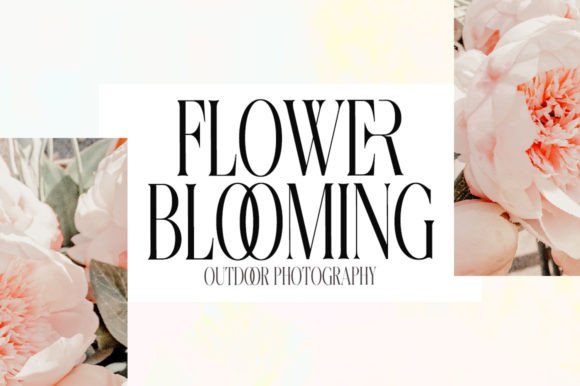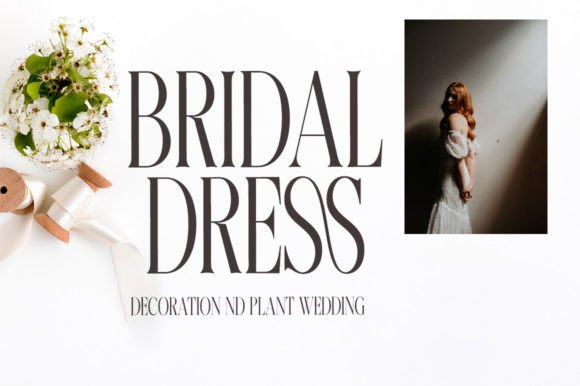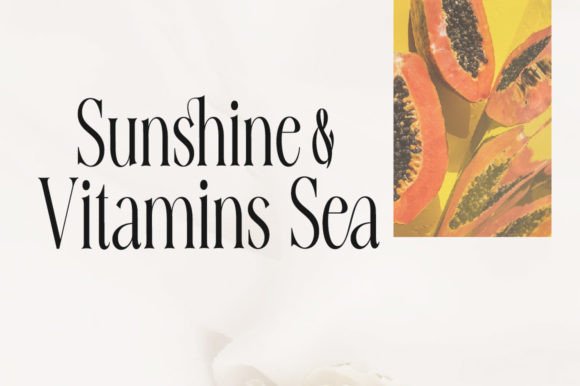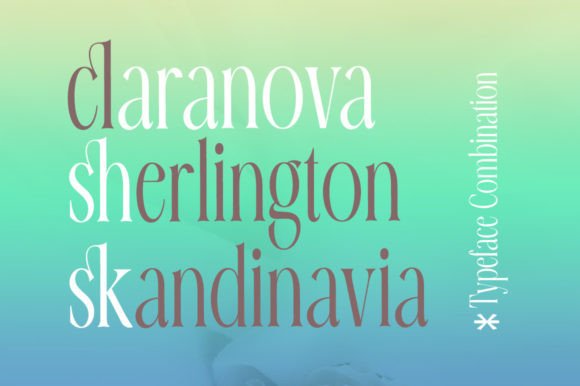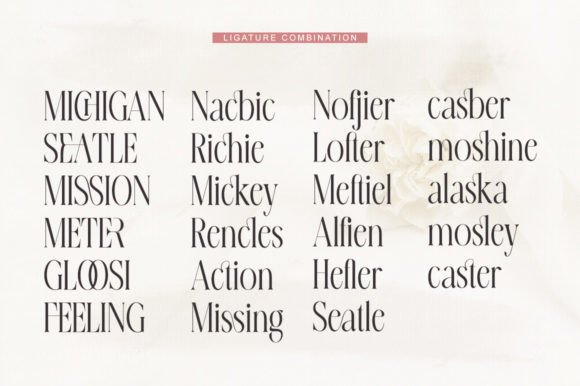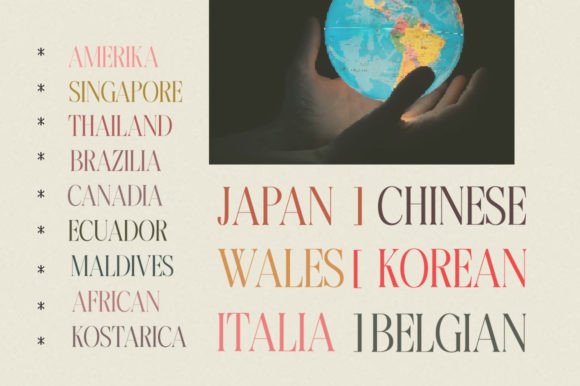
Introducing Erangle Font: Elevate Your Designs with Elegance
Are you a designer or crafter looking for a unique and sophisticated font to elevate your projects? Look no further than Erangle Font, an elegant serif typeface that exudes refinement and poise. Inspired by a vintage type specimen found at an art fair, Erangle is the perfect choice for logos, display purposes, and any design that requires a touch of luxury.
The Story Behind Erangle Font
Erangle Font was born from a chance discovery at an art fair, where a vintage type specimen caught the eye of a keen typographer. The original specimen’s unique blend of thin to thick contrasting lines and elegant curves sparked a creative journey to bring this beautiful design to life. The result is Erangle, a font that seamlessly blends classic charm with modern sophistication.
Key Features of Erangle Font
- Thin to Thick Contrasting Lines: Erangle’s distinctive feature is its dramatic contrast between thin and thick lines, giving it a sense of elegance and refinement.
- Elegant Curves: The font’s flowing curves add a touch of sophistication, making it perfect for designs that require a high level of refinement.
- Serif Typeface: Erangle’s classic serif design ensures excellent readability, even at smaller sizes, making it versatile for a range of applications.
Perfect for Logo and Display Purposes
Erangle Font is specifically designed with logo and display purposes in mind. Its unique blend of elegance and sophistication makes it an excellent choice for:
- Logos: Create a lasting impression with Erangle’s refined and luxurious feel.
- Headings: Add a touch of sophistication to your headings and titles with Erangle’s elegant curves and contrasting lines.
- Display Text: Make a statement with Erangle’s bold and refined design, perfect for display text that demands attention.
Why Choose Erangle Font?
With so many fonts available, why choose Erangle? Here are just a few reasons why designers and crafters are falling in love with this elegant serif typeface:
- Unique Design: Erangle’s distinctive blend of thin to thick contrasting lines and elegant curves sets it apart from other fonts.
- Versatility: Erangle’s classic serif design ensures it can be used for a range of applications, from logos and headings to display text and body copy.
- Elegance: Erangle exudes refinement and poise, making it perfect for designs that require a touch of luxury.
Tips for Using Erangle Font
To get the most out of Erangle Font, here are a few tips to keep in mind:
- Use it sparingly: Erangle’s elegance and sophistication are best showcased when used sparingly, such as in logos, headings, or display text.
- Experiment with sizes: Erangle’s classic serif design ensures excellent readability, even at smaller sizes, so don’t be afraid to experiment with different font sizes.
- Pair it with complementary fonts: Erangle’s unique design makes it an excellent choice for pairing with complementary fonts to create a cohesive look.
Erangle Font is an elegant serif typeface that is sure to elevate your designs with its refined and luxurious feel. Whether you’re a designer or crafter, Erangle’s unique blend of thin to thick contrasting lines and elegant curves makes it the perfect choice for logos, display purposes, and any design that requires a touch of sophistication. So why not give Erangle a try and experience the elegance and poise it brings to your projects?